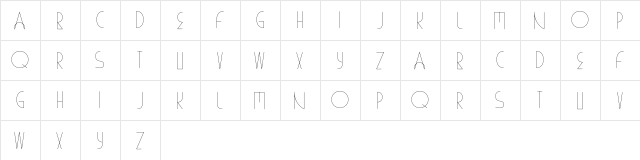
YES LIGHT
Design Context for YES Typeface
YES is a composed and adaptable typeface that performs quietly and consistently across a wide range of design contexts. The delicate stroke weight brings airiness and refinement to layouts.